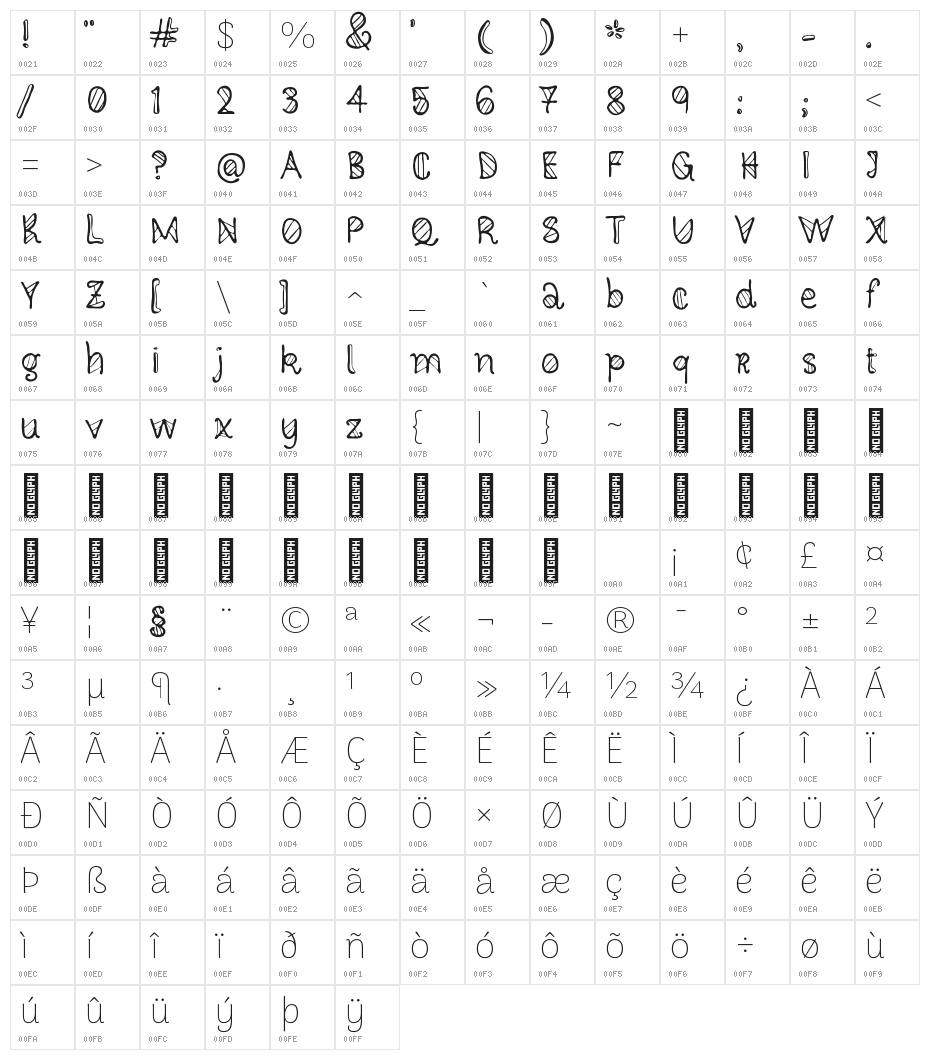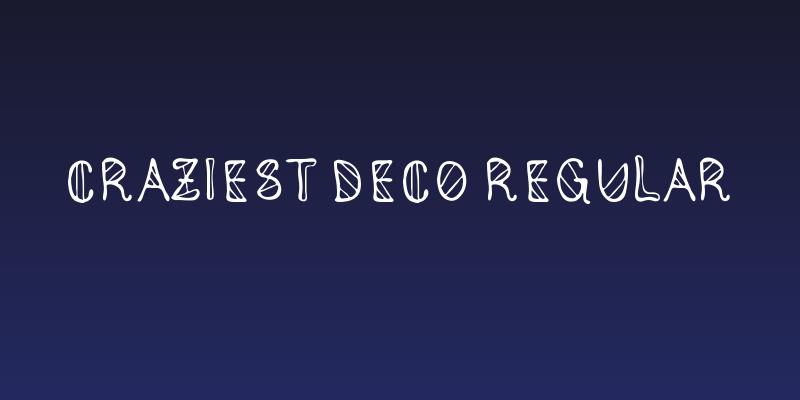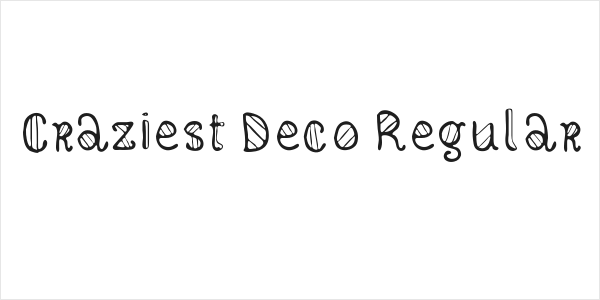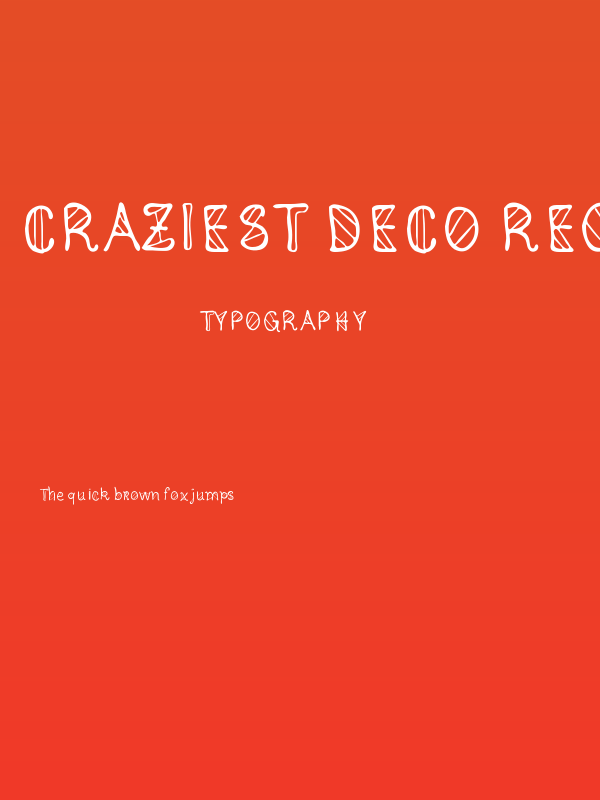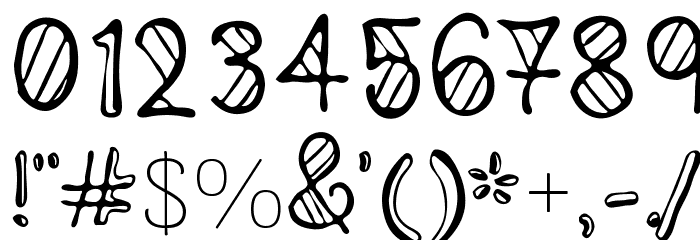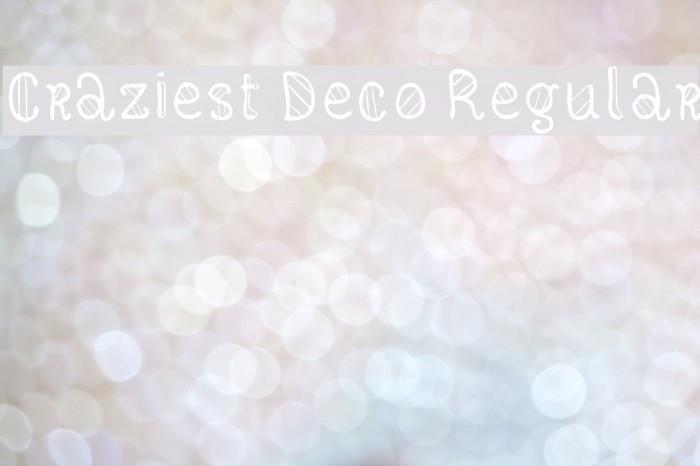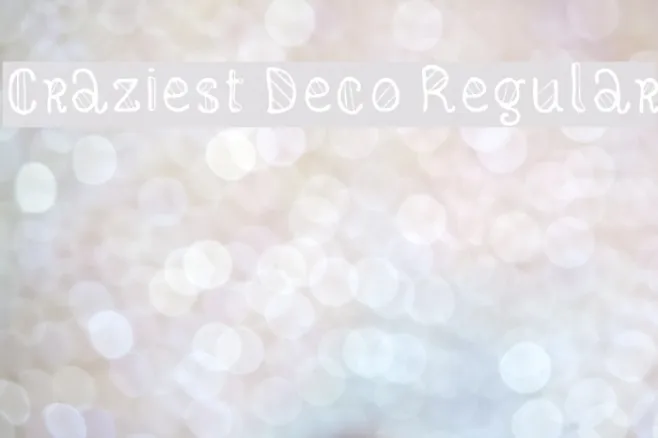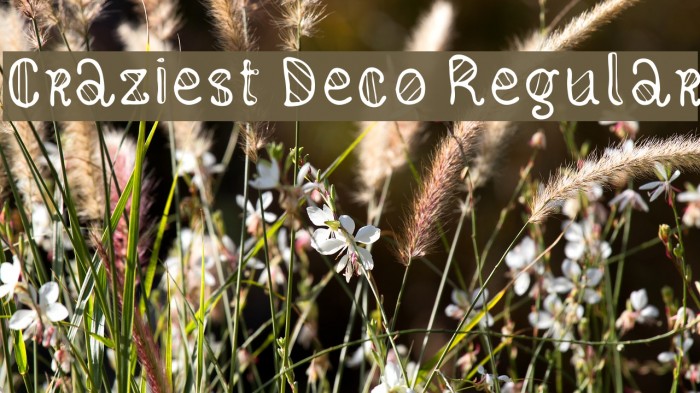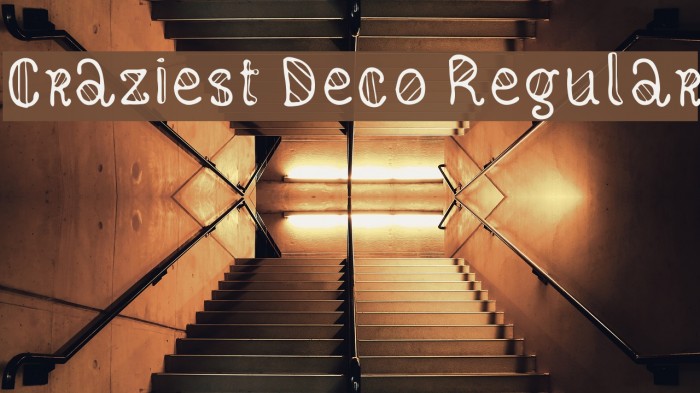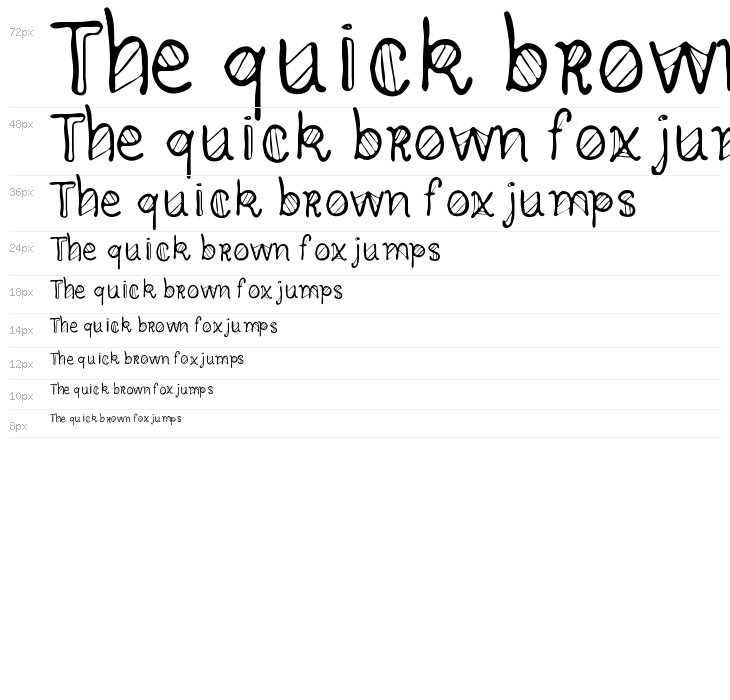
Craziest Deco Regular Font
Craziest Deco Regular Description
This font features a playful and whimsical design, characterized by its hand-drawn appearance and decorative elements. Each character is uniquely styled with a combination of bold strokes and intricate patterns, giving it a lively and dynamic feel. The uppercase letters are particularly distinctive, with some incorporating diagonal lines or cross-hatching within the letterforms. The lowercase letters maintain a consistent style, complementing the uppercase with their own quirky flair. Numbers and special characters follow the same artistic theme, ensuring a cohesive look across all glyphs. This font's unique style makes it stand out, perfect for projects that require a touch of creativity and fun.
| Proposed Projects | Ideal for creative projects such as children's books, playful branding, event invitations, and artistic posters. |